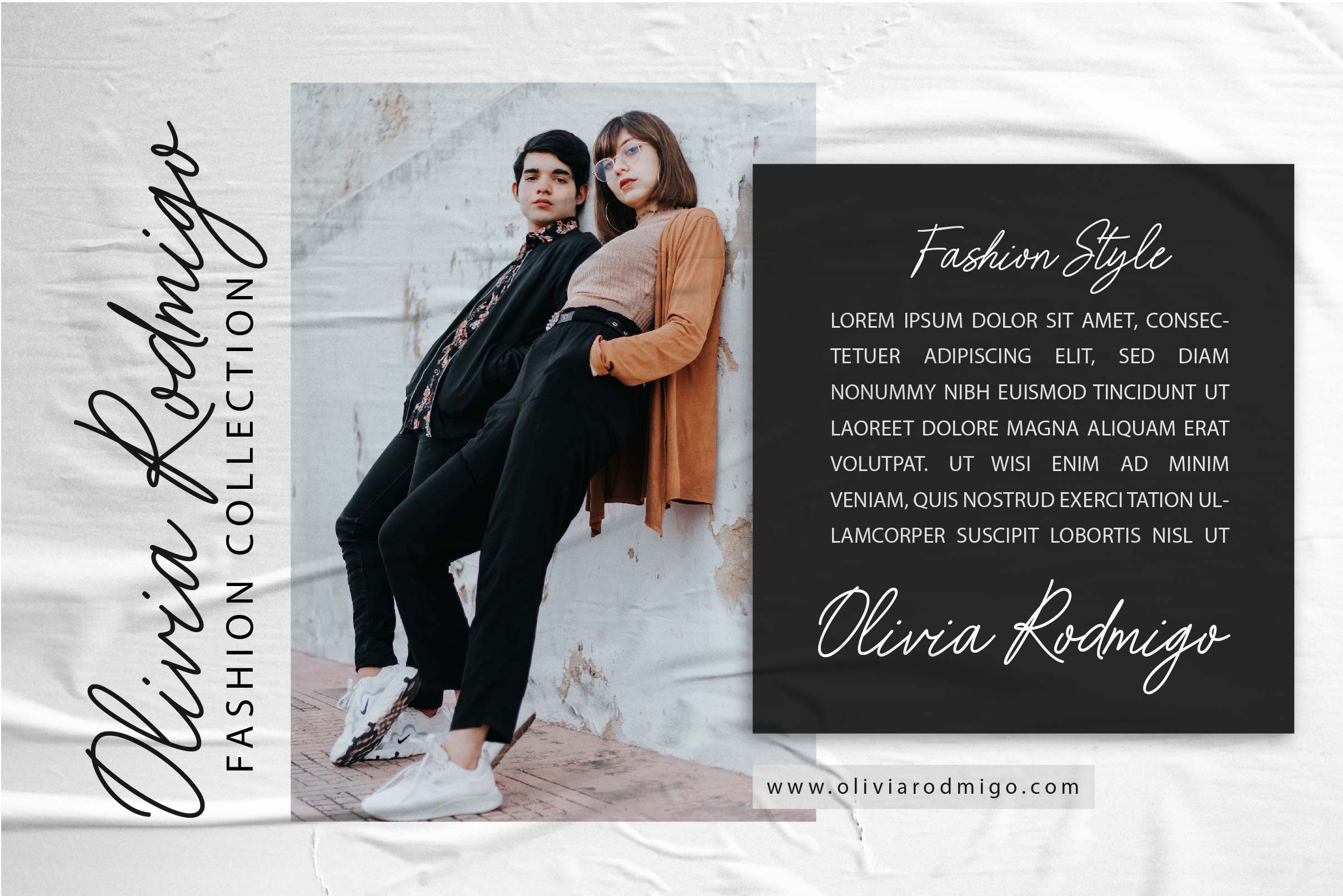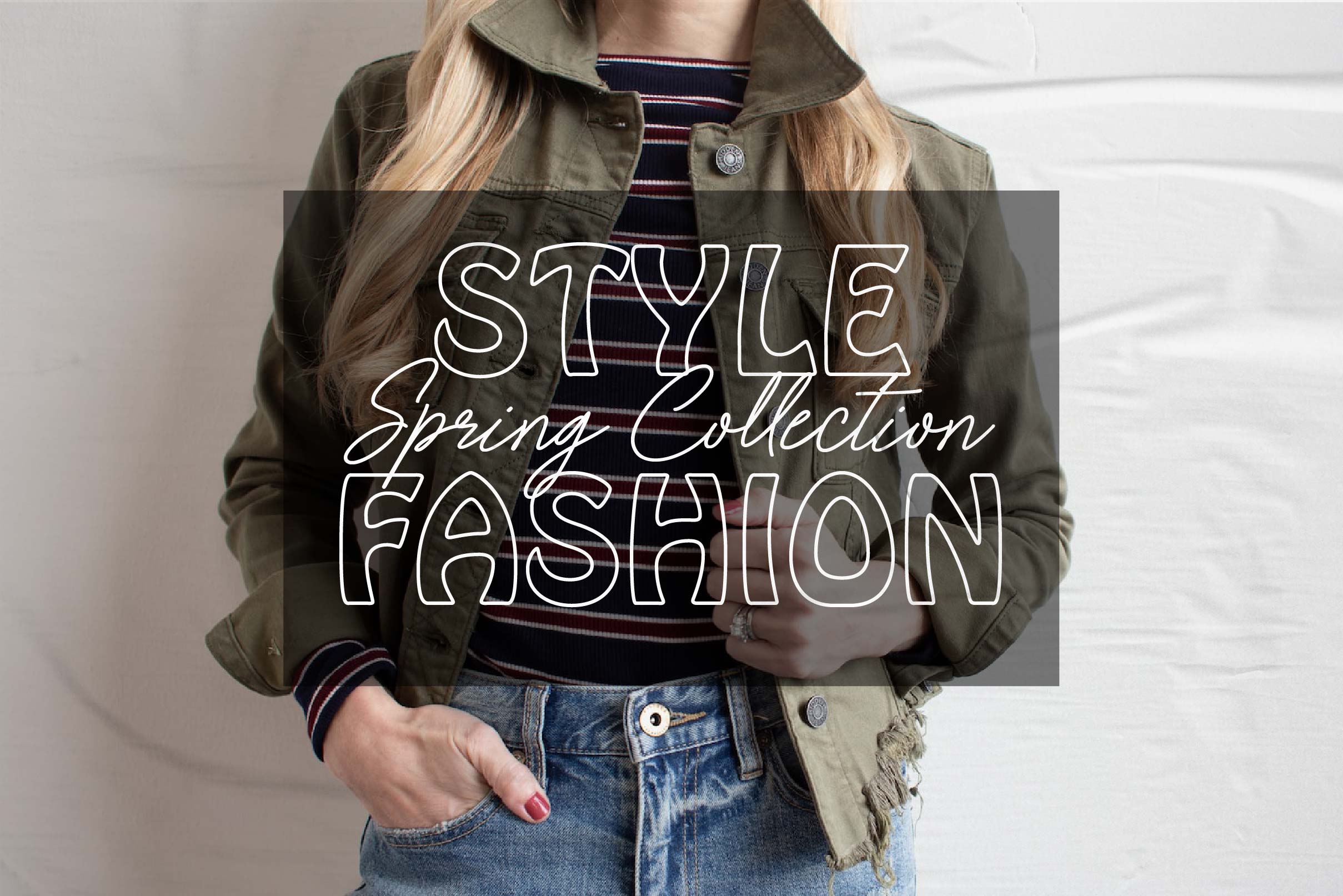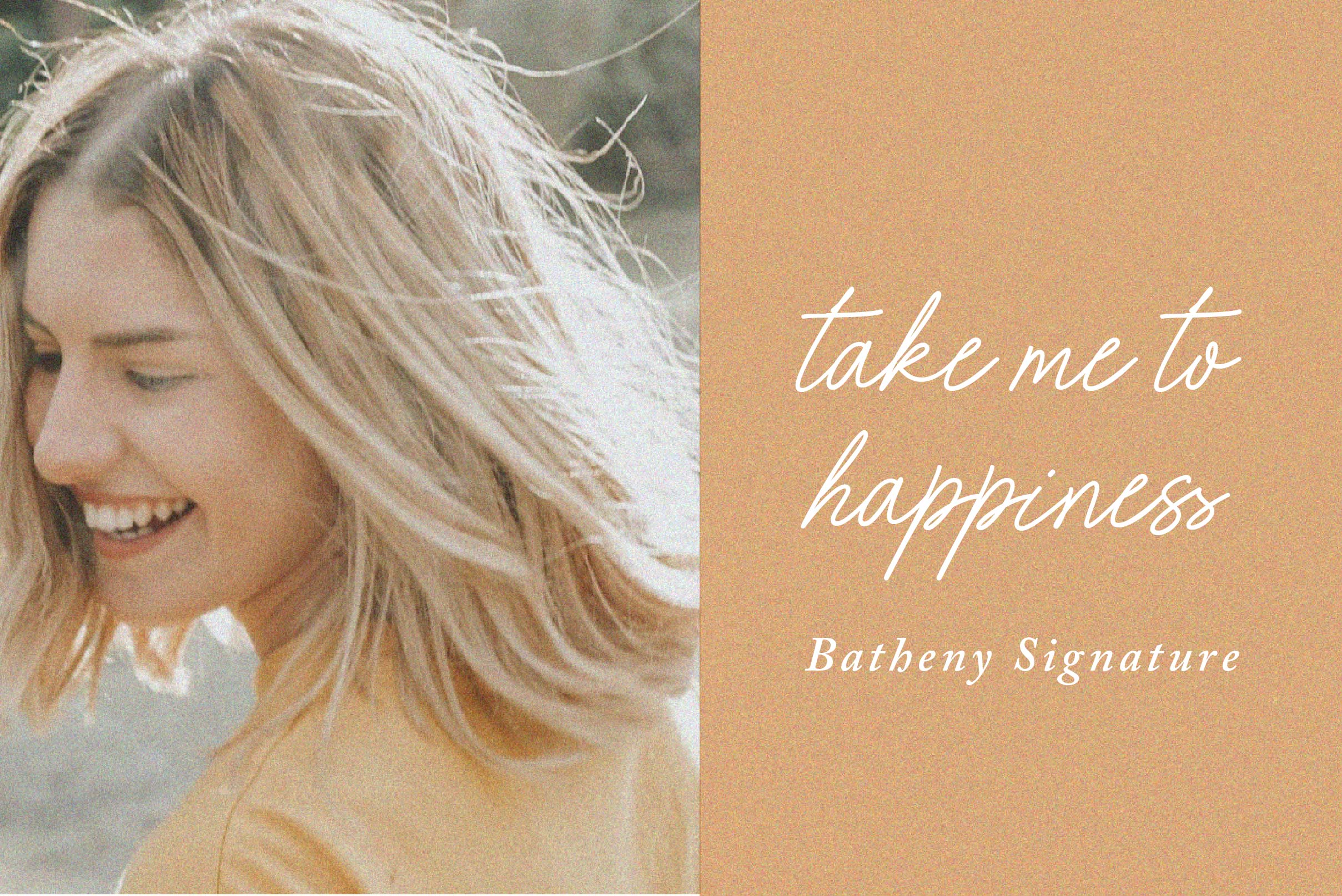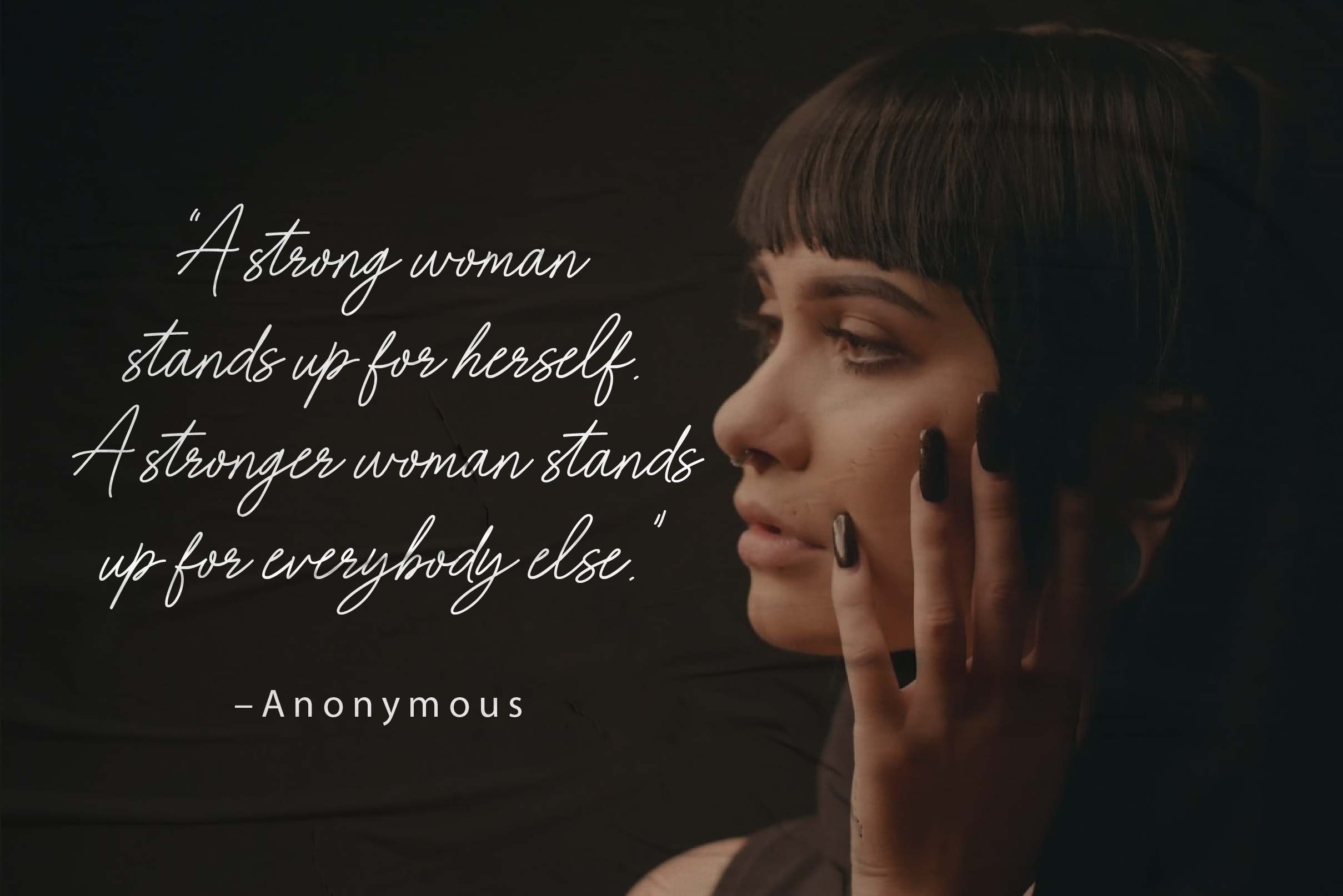
Batheny Signature Font
Batheny Signature Script Font features a handmade signature style, decorative characters and a dancing baseline! It will look beautiful on invitations, greeting cards, branding materials, business cards, quotes, posters, and more!! This font is PUA encoded which means you can access all of the glyphs and swashes with ease!
Full Version Includes:
– Uppercase, Lowercase, Numeral & Punctuation
– Alternate Letters, Ligature & Swash/Tail
– Multilingual & PUA Encoded